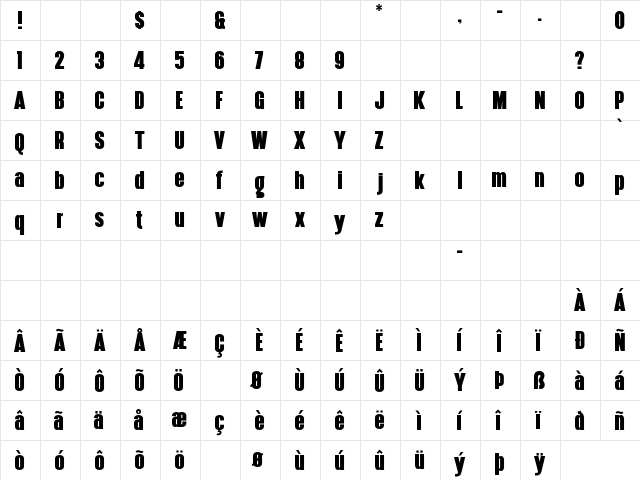
Hennigar Regular
| Foundry | Sharkshock |
| Designer | Dennis Ludlow |
Design Context for Hennigar Typeface
Hennigar takes a measured approach to typography — its balanced proportions and neutral character make it a reliable workhorse for both digital and print work.